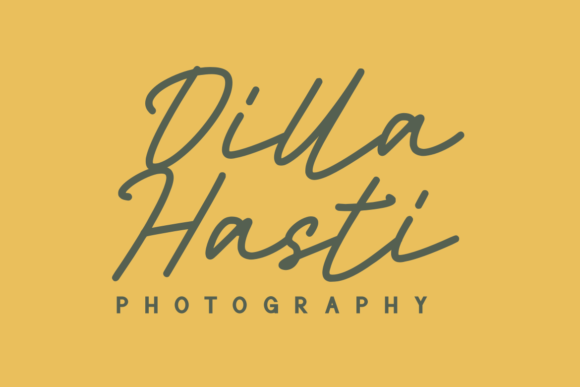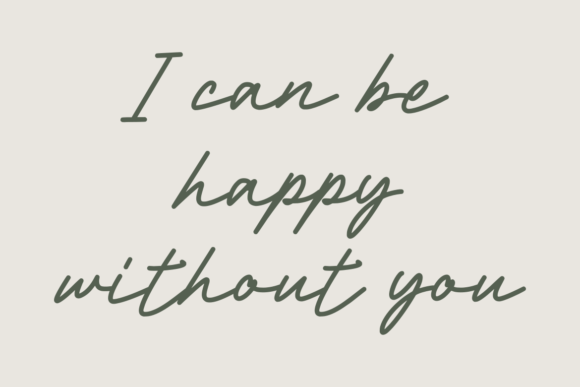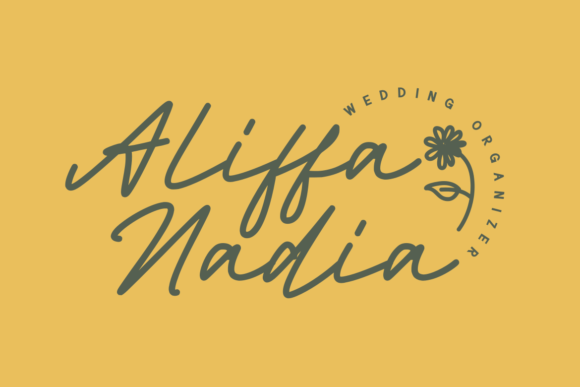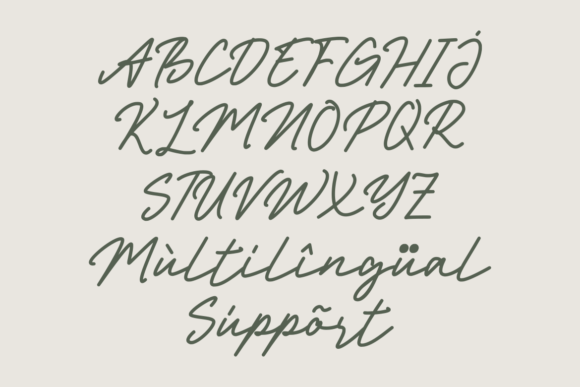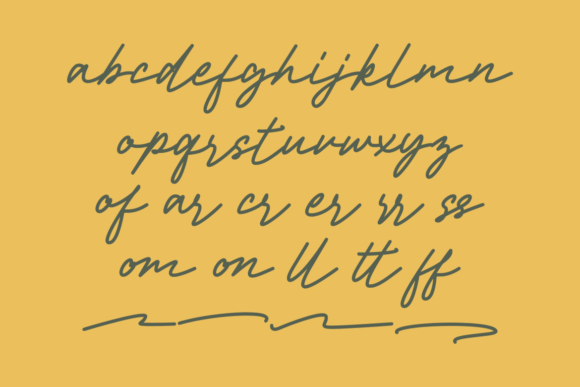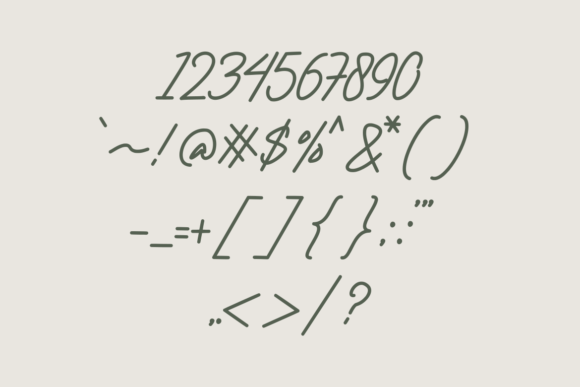
Introduction to Rindu Jati Font
As a designer, there’s nothing quite like the thrill of bringing a creative project to life. You’ve poured your heart and soul into every detail, from the colors to the typography. And then, it happens – you stumble upon the perfect font to tie everything together. For many, that font is Rindu Jati Font, a script font that exudes authenticity and elegance.
What sets Rindu Jati Font apart is its unique ability to add a touch of sophistication to any design. Whether you’re working on a high-end branding project or a free download for a personal blog, this font is sure to impress. With its transparent background and high-quality design, Rindu Jati Font is a valuable resource for any designer looking to elevate their work.
Key Features of Rindu Jati Font
- High-quality design: Rindu Jati Font is designed to meet the needs of creative projects, offering a unique and elegant style that can elevate any design.
- Unique characteristics: The font’s distinctive design elements, such as its intricate details and subtle nuances, set it apart from other fonts in its class.
Honest Review: Rindu Jati Font
As a designer, I’m always on the lookout for unique and high-quality design resources to elevate my creative projects. Recently, I stumbled upon the Rindu Jati Font, and I must say it’s a hidden gem.
What works well is its sleek and modern design, which makes it perfect for a variety of creative projects. The font’s bold and elegant lines add a touch of sophistication to any design, and its transparent background makes it easy to layer with other design elements.
However, I did encounter some limitations. The font may not be suitable for projects that require a more traditional or conservative design aesthetic. Additionally, the font’s bold lines may not be ideal for designs that require a lot of fine details.
Overall, I’m impressed with the Rindu Jati Font, and I would highly recommend it for designers looking for a unique and high-quality design resource. ⚠️ Just be mindful of its limitations, and you’ll be good to go!
Common Use Cases for Rindu Jati Font
The Rindu Jati Font is perfect for a variety of creative projects, including logo design, branding, and graphic design. Its high-quality design and transparent background make it a great choice for creating visually appealing designs with a free download.